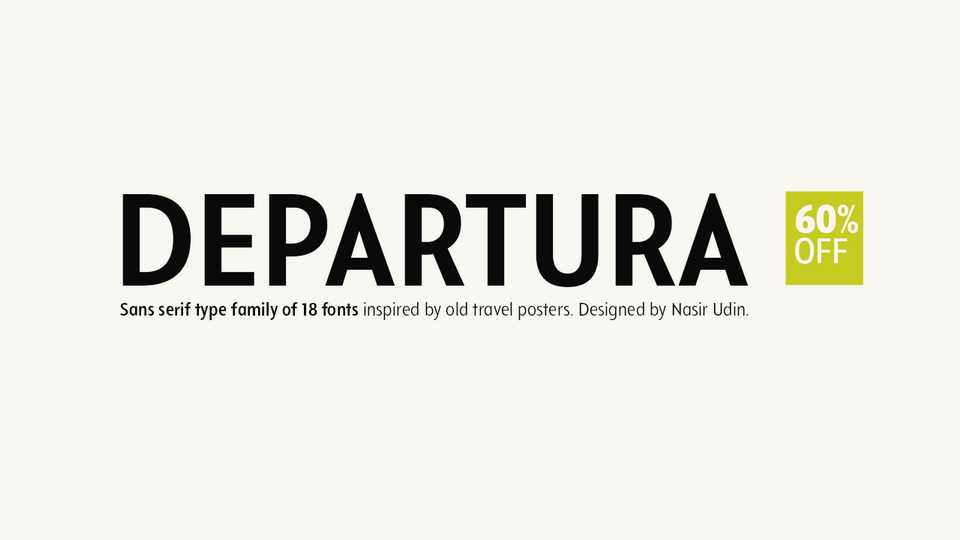
Download Departura font, a sans serif typeface inspired by art deco travel posters in early 20th century, fused with modern and geometric touch.
Designer: Nasir Udin